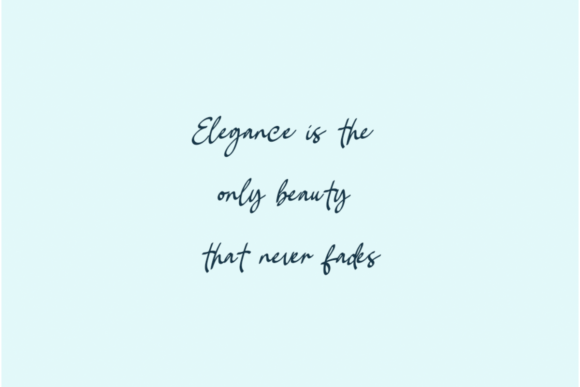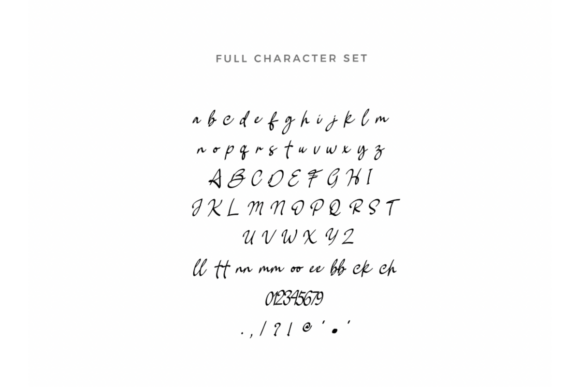
Discover the Charm of Flora Font: A Handcrafted Script for Creative Projects
Have you ever been in the midst of working on a design project, only to find yourself stuck on one thing: the perfect font? I recall a particularly frustrating experience when a client requested a custom invitation design, and I just couldn’t seem to find a font that captured the warmth and elegance they were looking for. That’s when I stumbled upon Flora Font, a beautiful, handcrafted script that instantly brought my design to life.
First Impressions: What Makes Flora Font Special
Flora Font is more than just a collection of letters; it’s an artful expression of creativity and attention to detail. This distinctive script font is designed with a personal touch, boasting gorgeous handwritten characters that add a touch of charm and warmth to any project. Whether you’re working on branding, invitations, titles, or more, Flora provides an element of enchantment that elevates your work.
So, what makes Flora Font stand out? Here are a few things I love:
- ✨ Unique Character: Flora’s handcrafted nature gives it a unique personality that sets it apart from more generic fonts.
- ✅ Ease of Use: Despite its complex appearance, Flora is surprisingly easy to use, even for those who aren’t familiar with script fonts.
- 💫 Versatility: From elegant invitations to bold branding statements, Flora adapts effortlessly to various design needs.
- 📚 Extensive Glyphs: With a wide range of glyphs and stylistic alternates, Flora offers plenty of creative options.
Of course, no font is perfect. A few minor quirks to consider:
- 🤔 Kerning Issues: As with many script fonts, you might encounter some kerning issues, particularly with certain letter combinations. A bit of manual adjustment can usually fix this.
- ⚠️ Legibility at Small Sizes: While Flora shines at larger sizes, it can become less legible when used too small. It’s best used at 24pt or larger for optimal impact.
The Story Behind Flora: A Glimpse into Its Creation
Flora Font was born from a passion for calligraphy and a desire to create a font that embodies the elegance and warmth of handwritten script. Its designer, inspired by the beauty of nature and the artistry of traditional calligraphy, devotedly handlettered each character to ensure a personal touch. The result is a font that not only looks stunning but also feels approachable and inviting.
| Is Flora suitable for body text? | While Flora is stunning, it’s best used for headings and titles due to its script nature and potential legibility issues at smaller sizes. |
| Does Flora support multiple languages? | Flora offers a range of glyphs and supports various languages, but it’s best to check the specific language support and diacritical marks. |
Flora Font is a beautiful addition to any designer’s toolkit, offering a unique blend of elegance, charm, and versatility. Whether you’re crafting invitations, developing a brand identity, or simply looking to add some flair to your projects, Flora is sure to make every word a lovingly handwritten masterpiece.